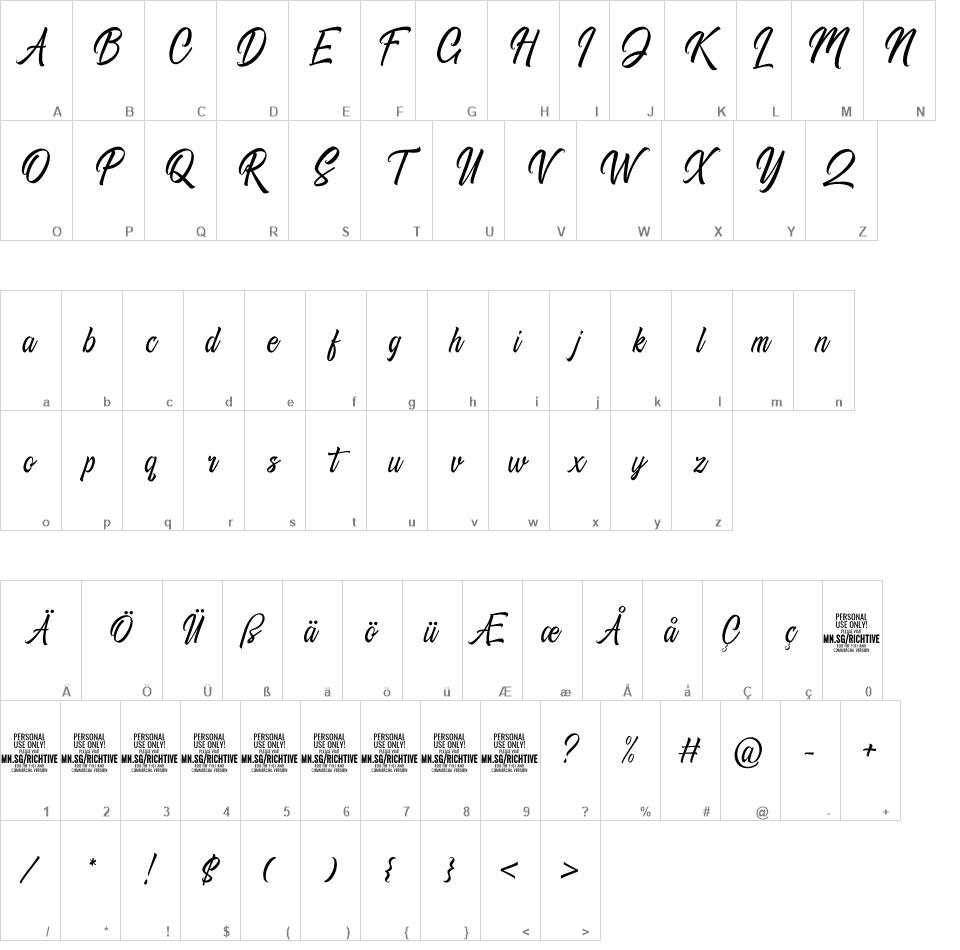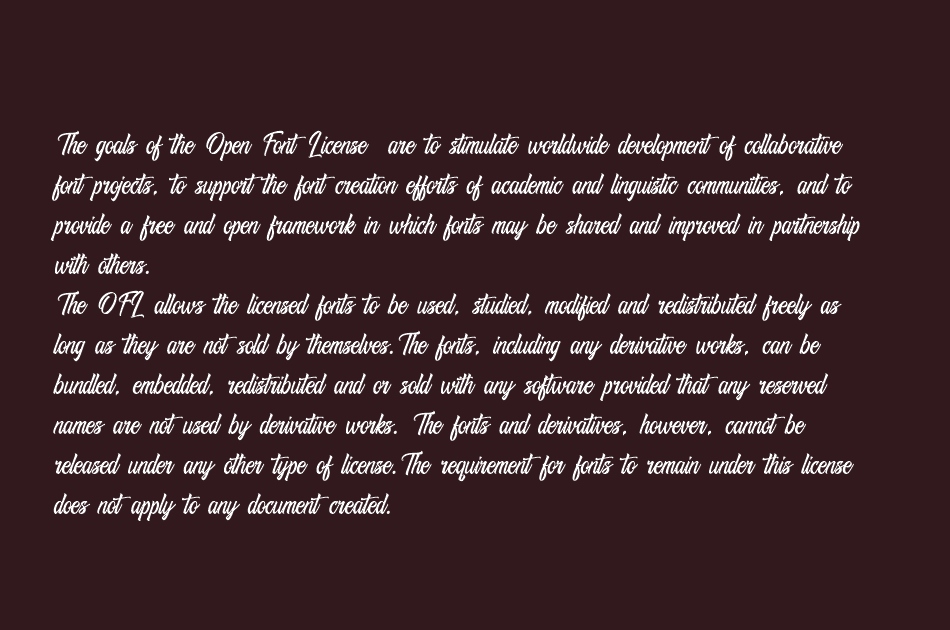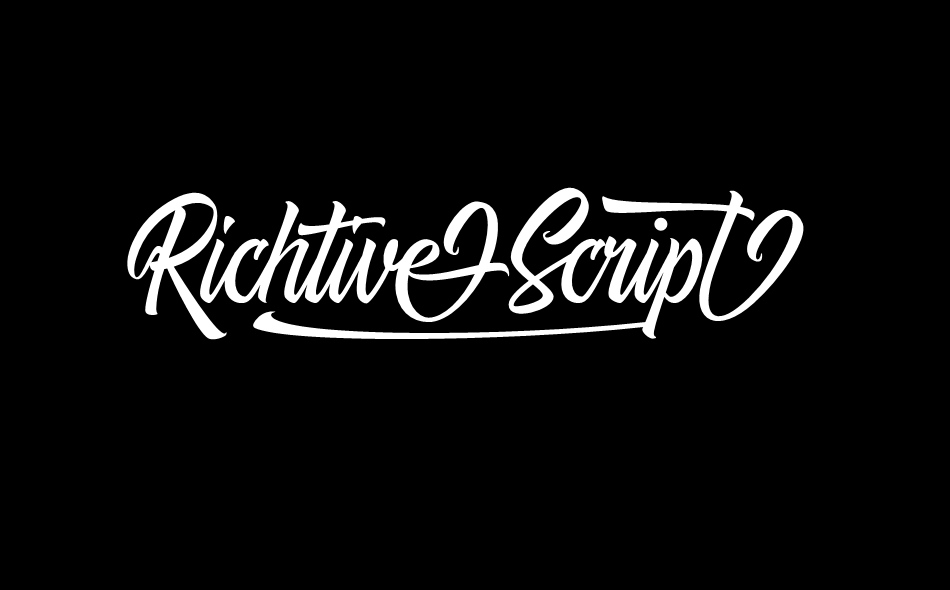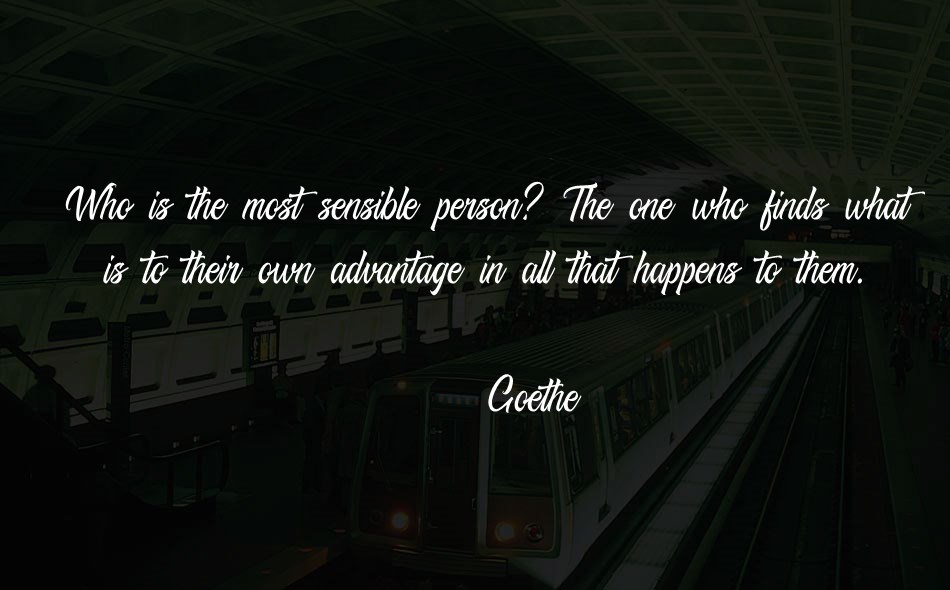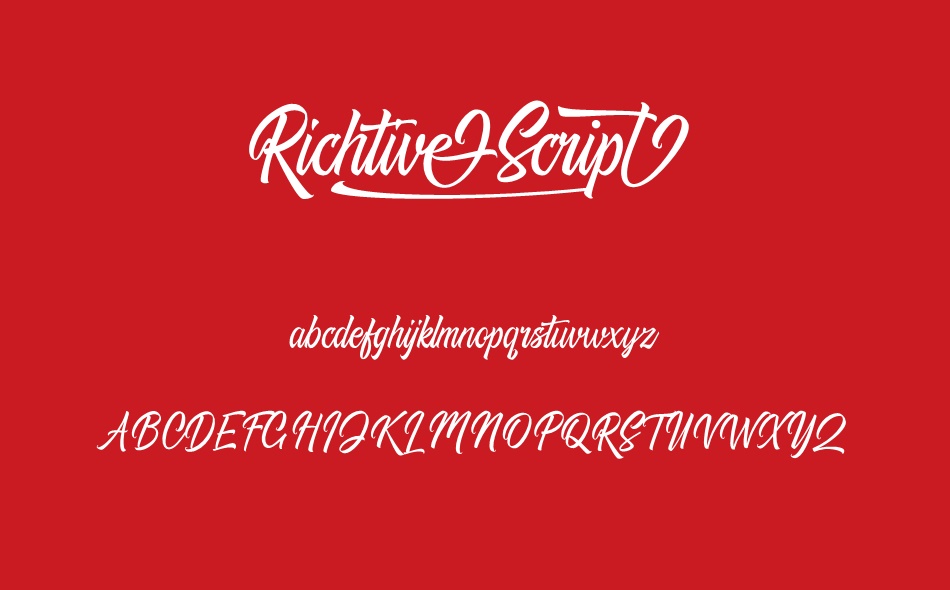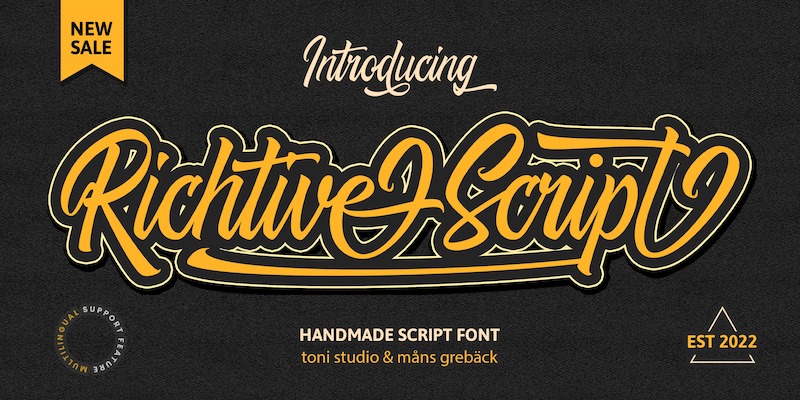
Richtive Script font
Write # < after any word to make a tail.
Example: Signed
Use underscore _ to make a swash.
Example: Super_man
Use multiple underscores for different swashes.
Example: Love______letter
Richtive Script is a sharp brush typeface.
This calligraphy font's vivid style and strong movements instantly gets the attention of its spectator, and the lettering has a powerful motion while maintaining clarity.
Drawn and created by Mans Greback and Toni Studio in 2022, this handwritten lettering has a wild appearance and a vigorous personality, perfect for a cool handwritten logotype.
Write ¤ # < after any word to make a tail. Example: Signed¤ Use underscore _ to make a swash. Example: Super_man Use multiple underscores for different swashes. Example: Love______letter (Download required.)
The font is built with advanced OpenType functionality and has a guaranteed top-notch quality, containing stylistic and contextual alternates, ligatures and more features; all to give you full control and customizability. It has extensive lingual support, covering all Latin-based languages, from Northern Europe to South Africa, from America to South-East Asia. It contains all characters and symbols you'll ever need, including all punctuation and numbers.